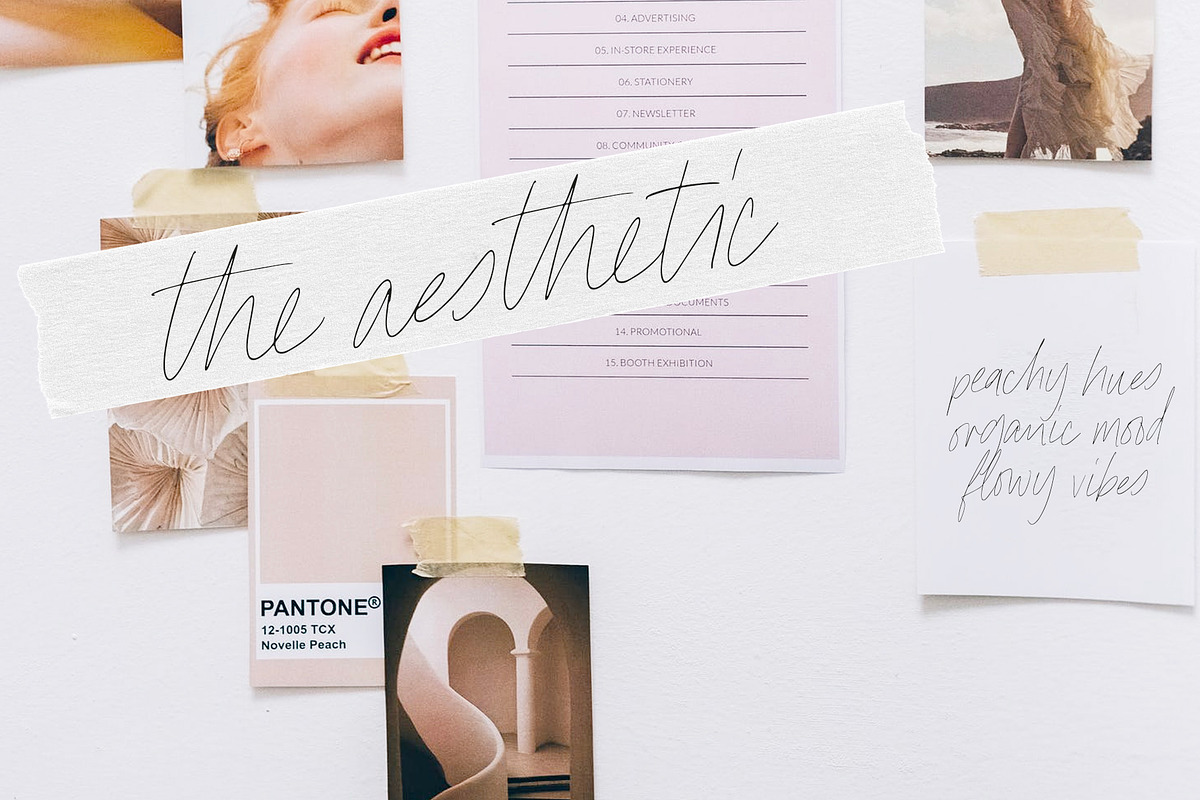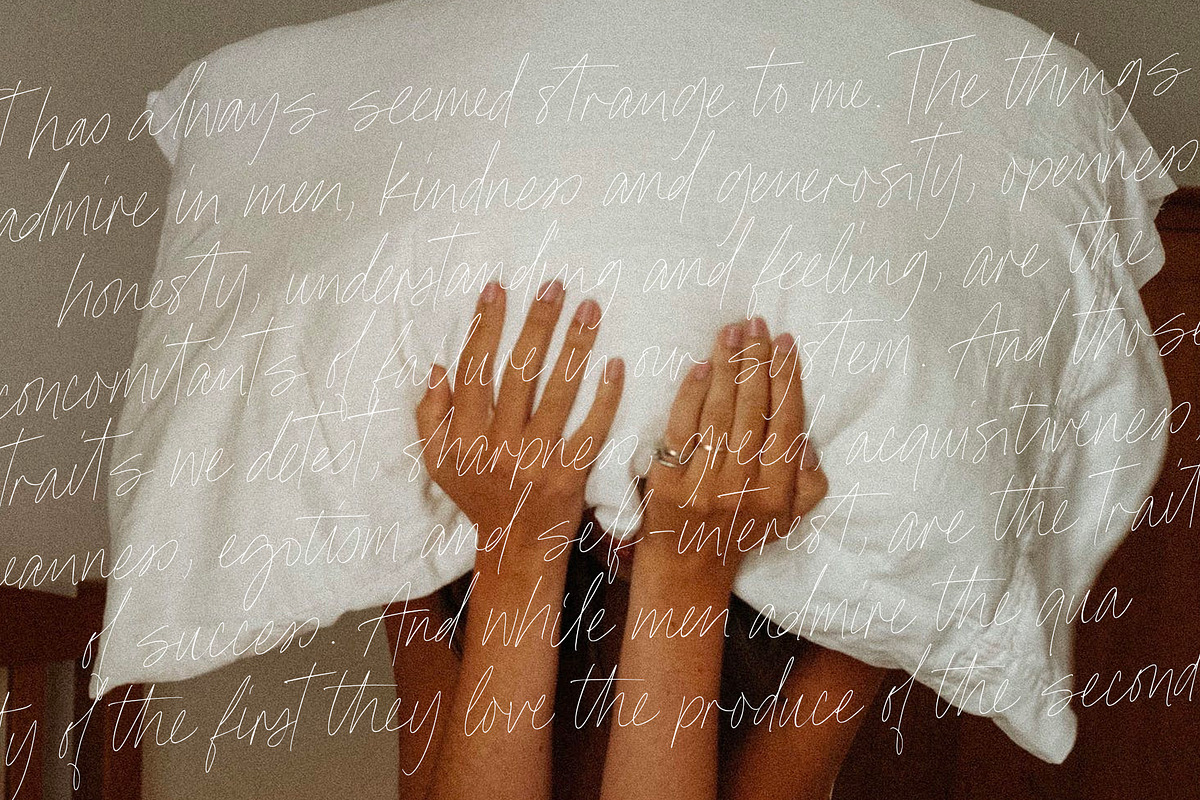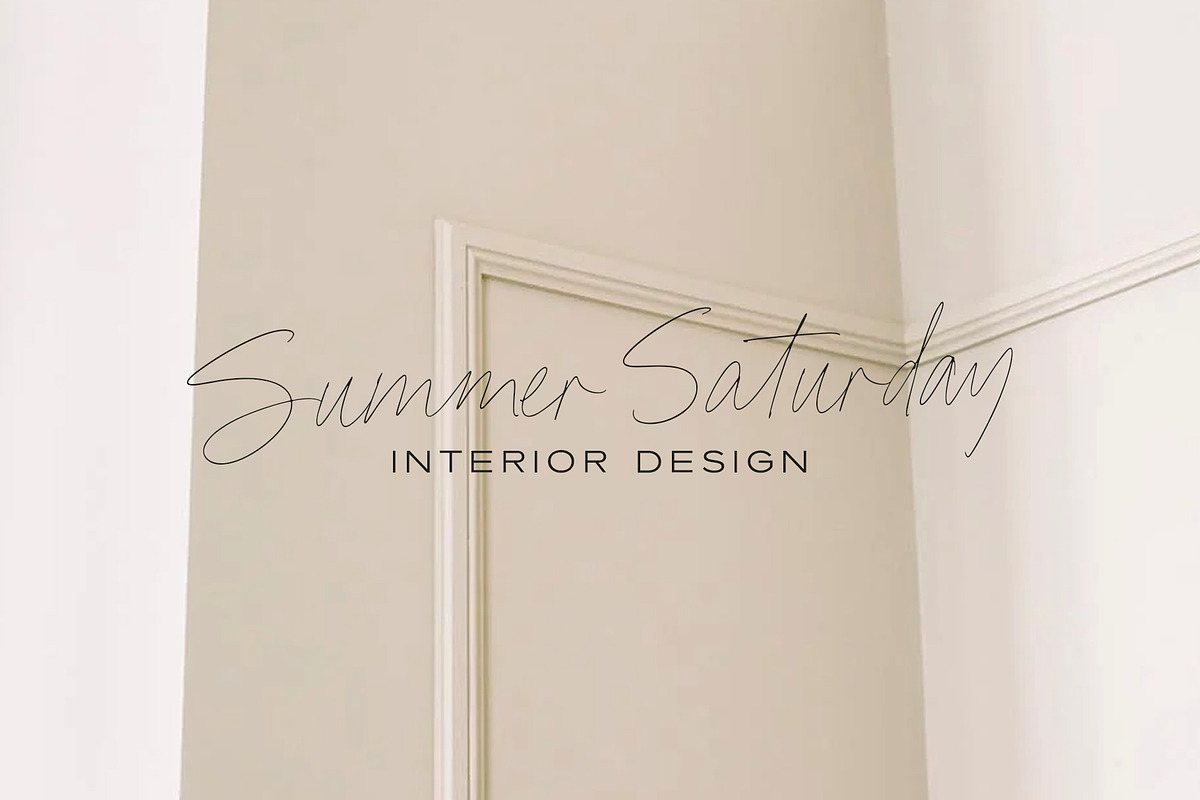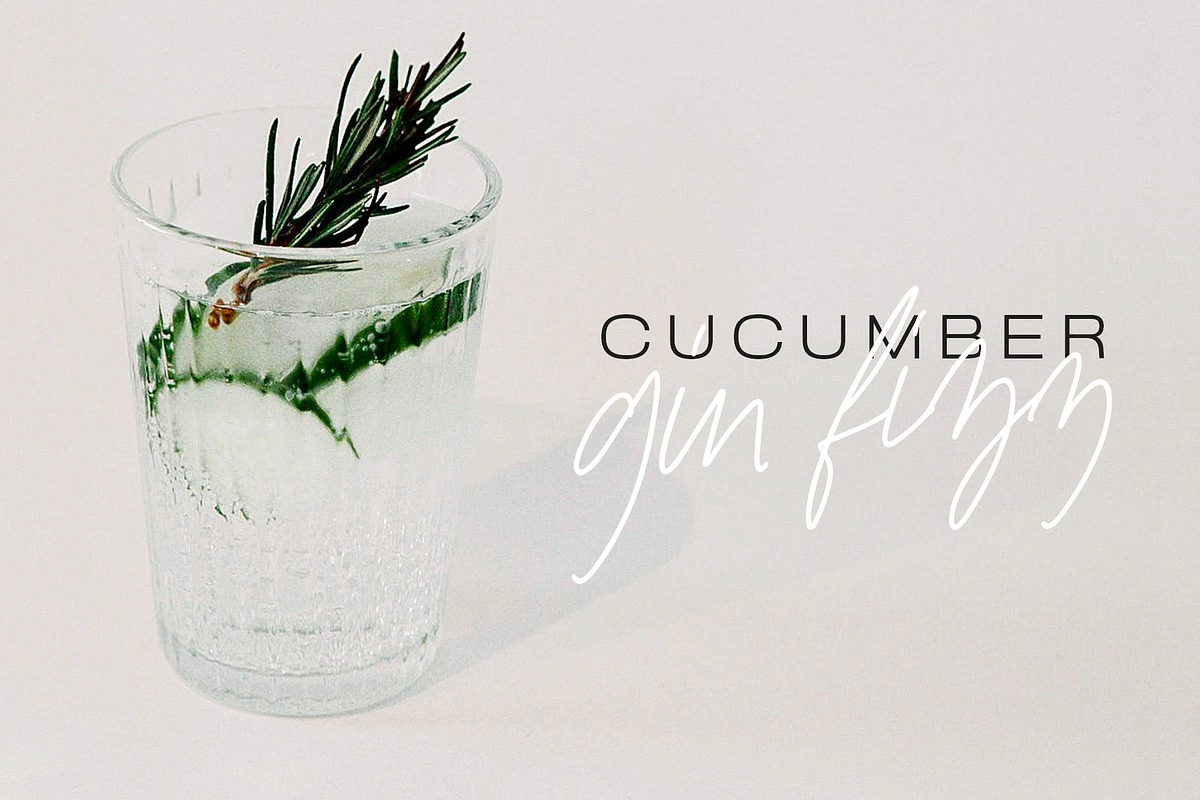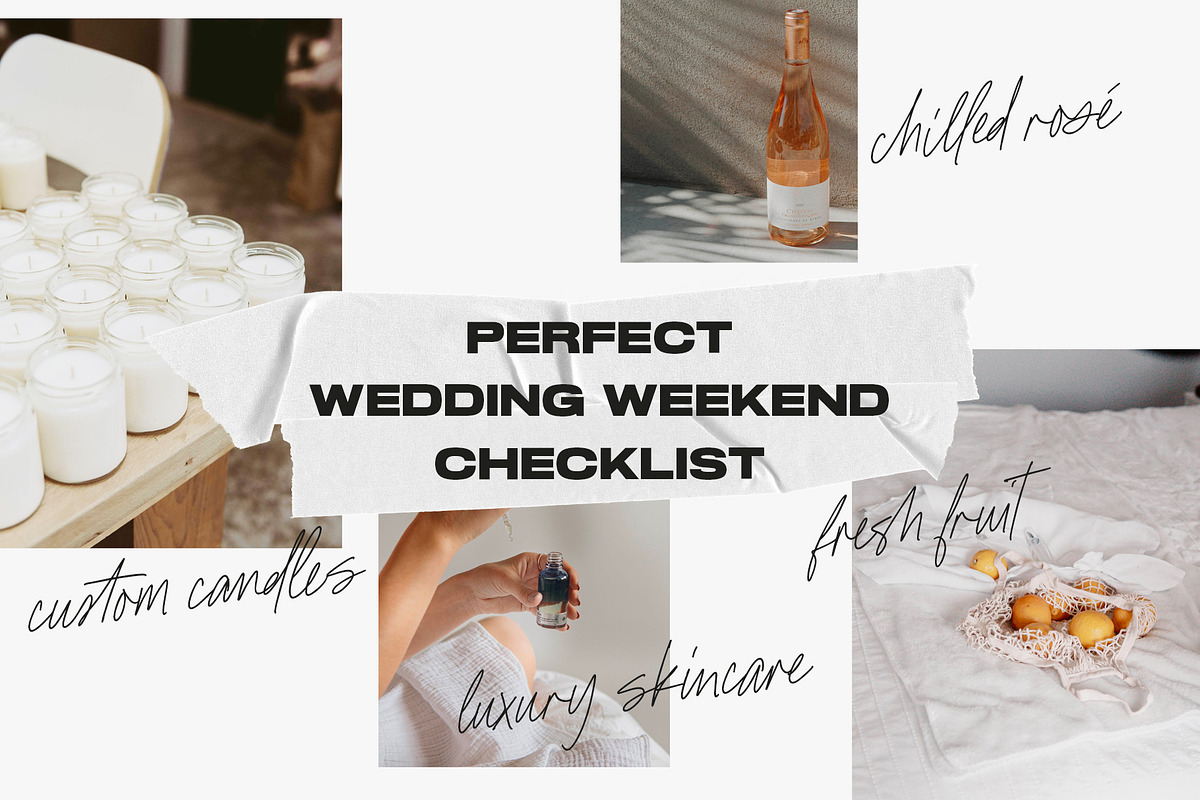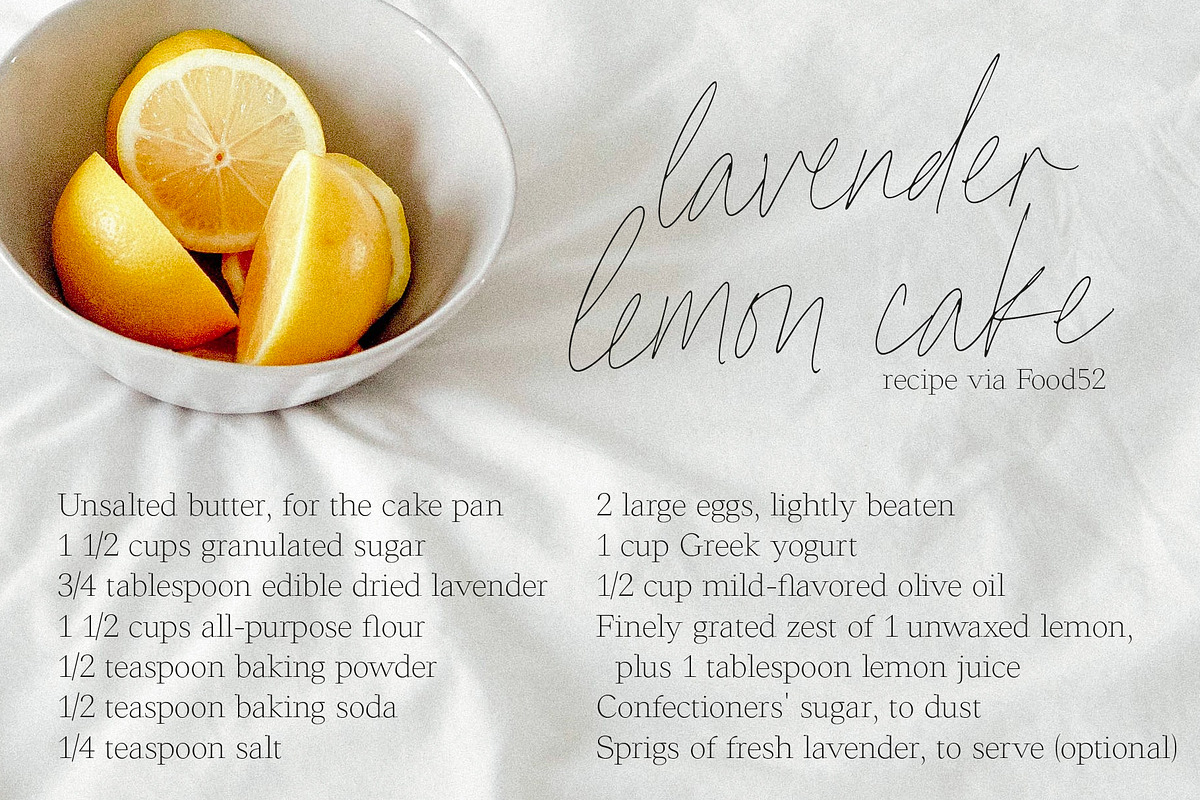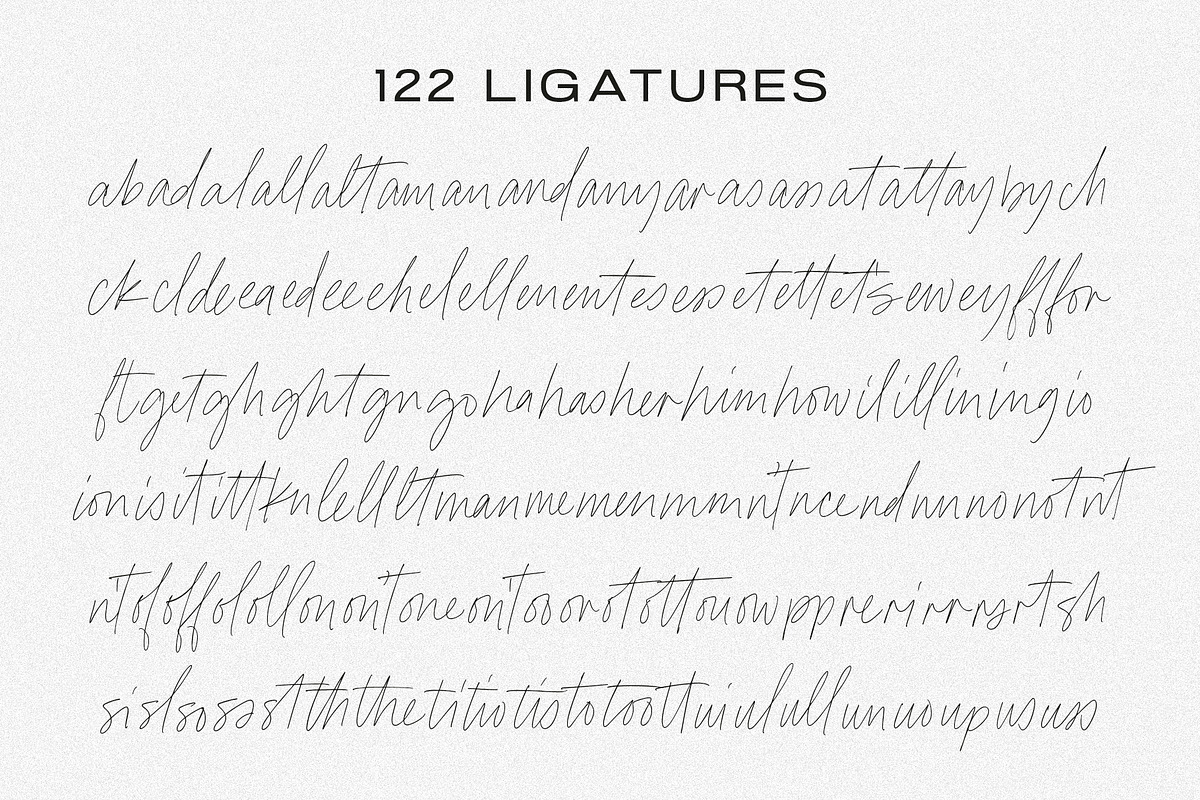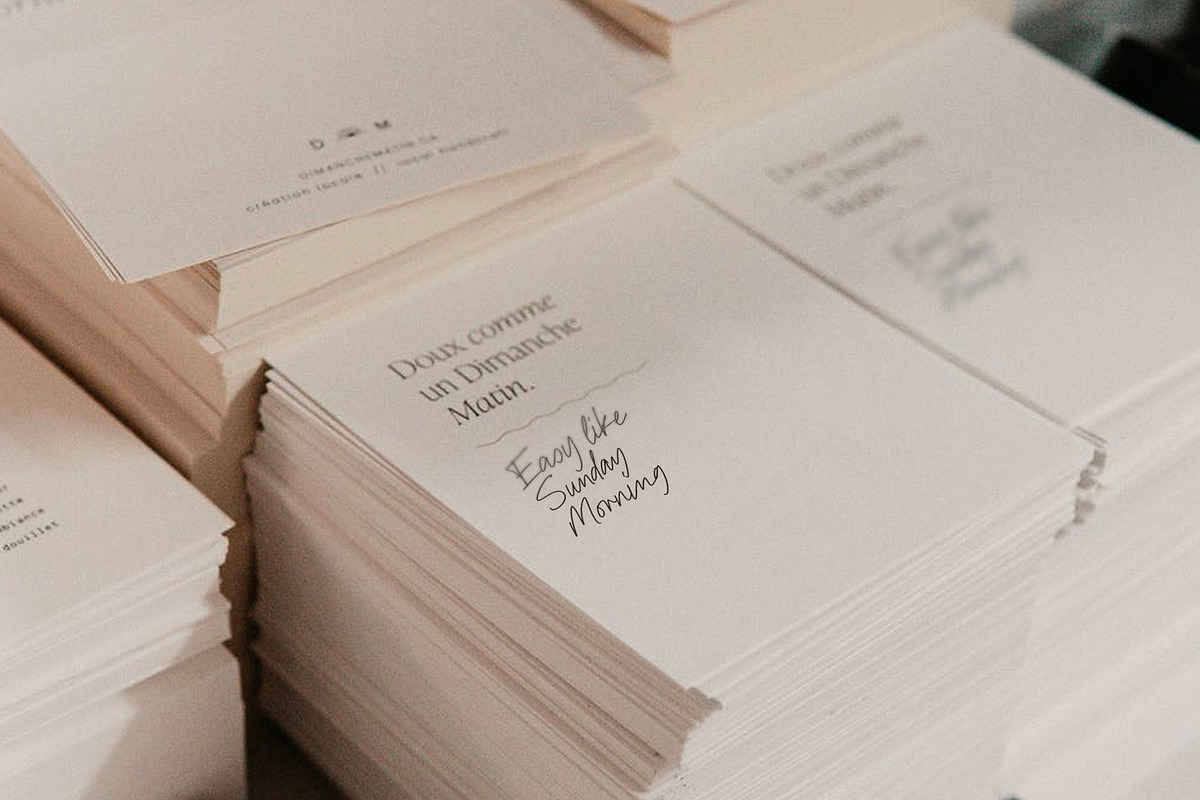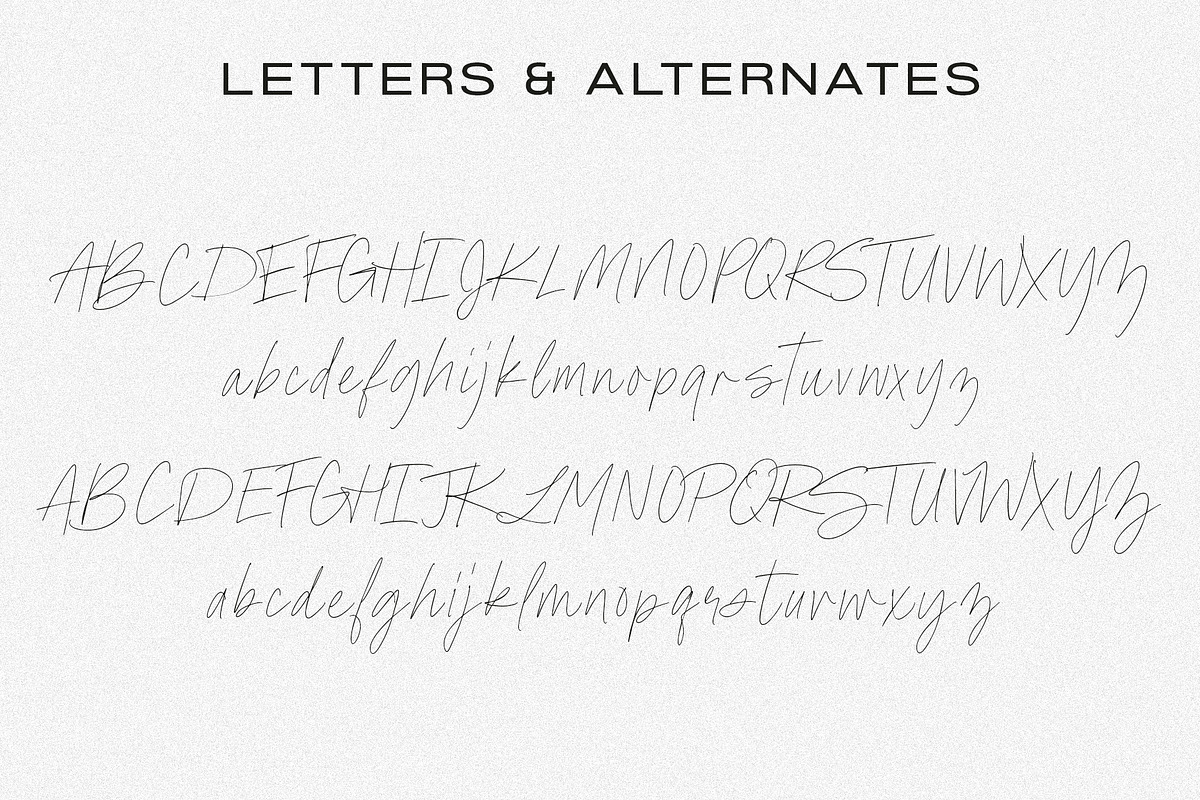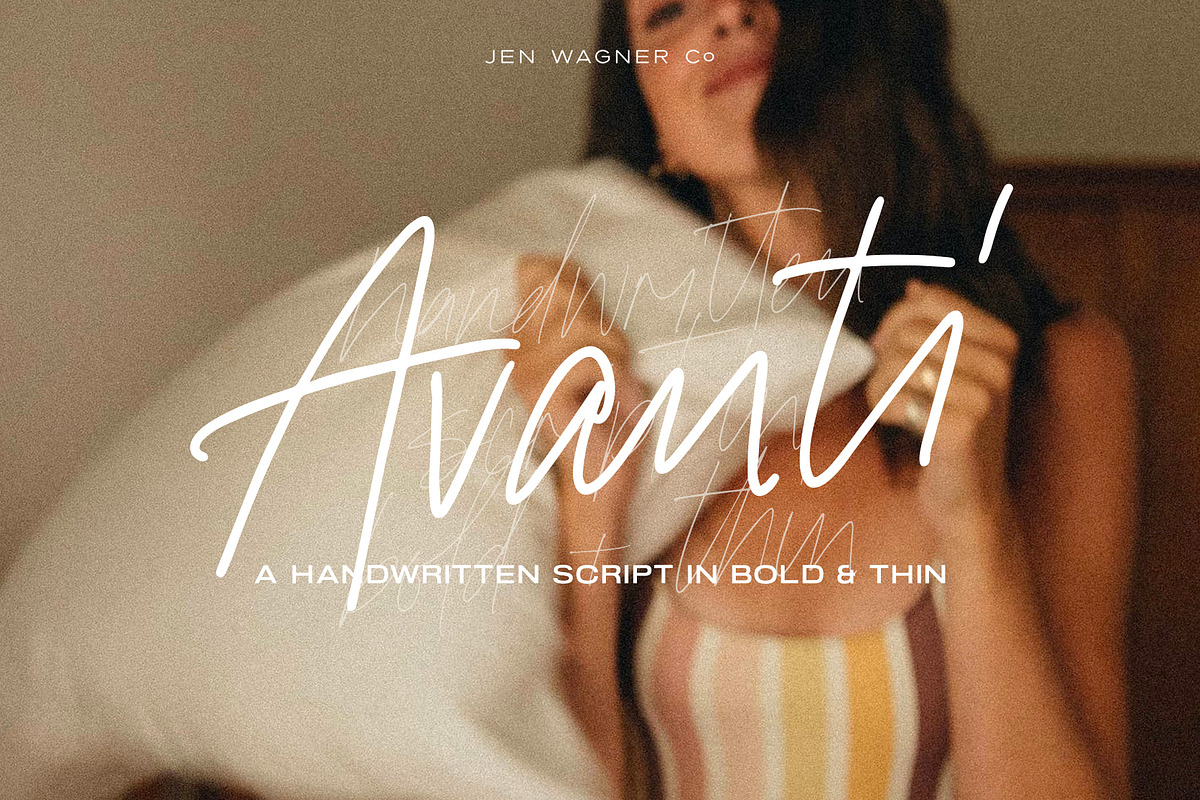
Avanti Casual Script in Bold & Thin
Avanti is a beautiful, casual script adds a custom and organic feel to any design in seconds!
With 122 ligatures, plus alternates for each letter, you can create text that looks totally handwritten rather than like a font.
Simply swap the occasional letter for its alternate (using the glyphs or special characters panel), and turn on your ligatures. :)
- Uppercase A-Z, lowercase a-z, numbers, punctuation
- Alternates for each letter so it looks more like custom writing
- 122 ligatures for a totally handwritten look
- Central & Eastern European language characters